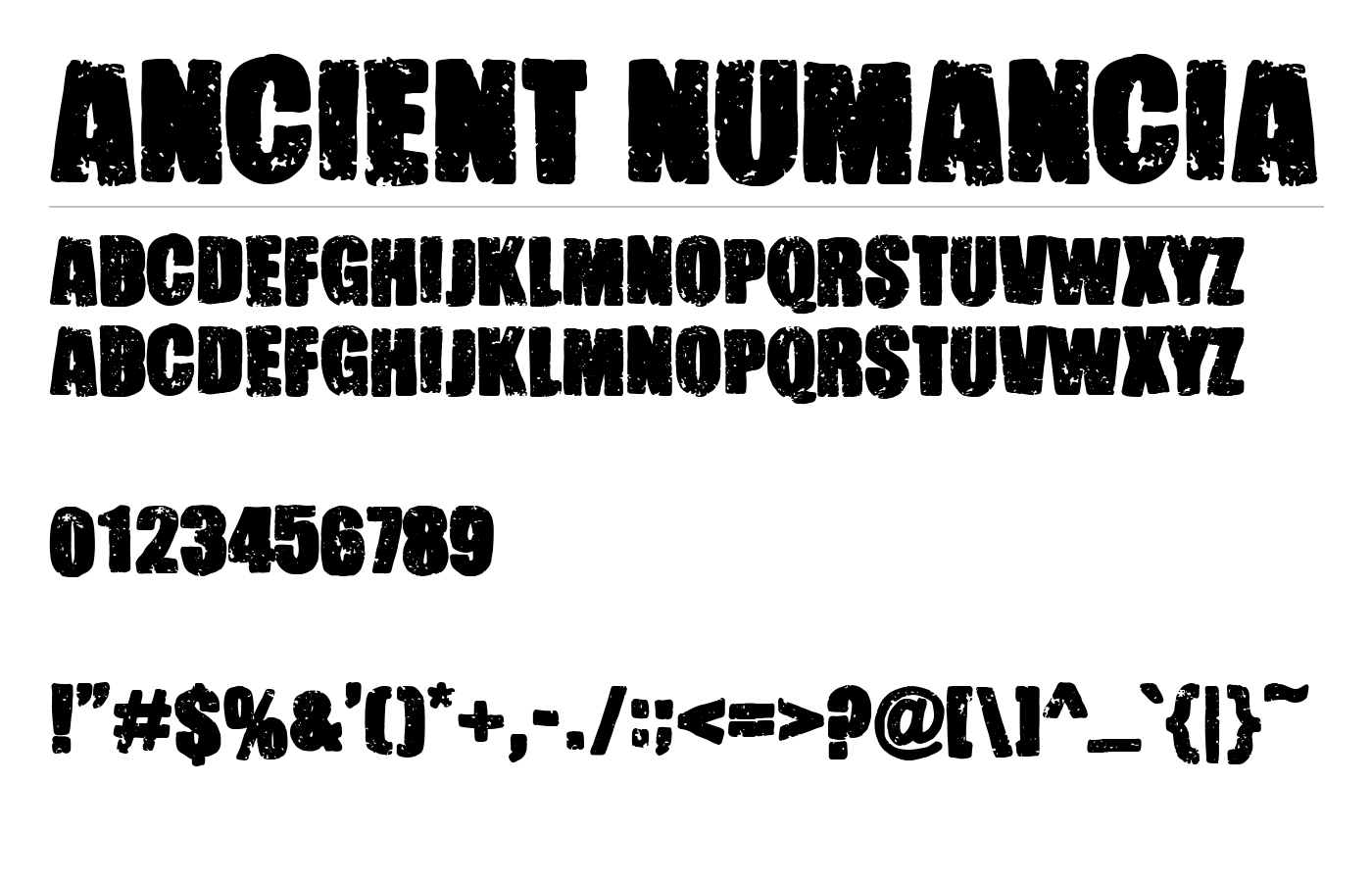
Ancient Numancia is a bold, condensed sans serif font with a distressed, grunge texture that gives it a rugged and vintage feel. Its strong, blocky letterforms with rough edges make it perfect for designs that need a bold, impactful look with an aged or weathered character. This font works well for posters, logos, and branding that aim to evoke a sense of history, toughness, or rebellious spirit.
Ancient Numancia Font
About Ancient Numancia Font